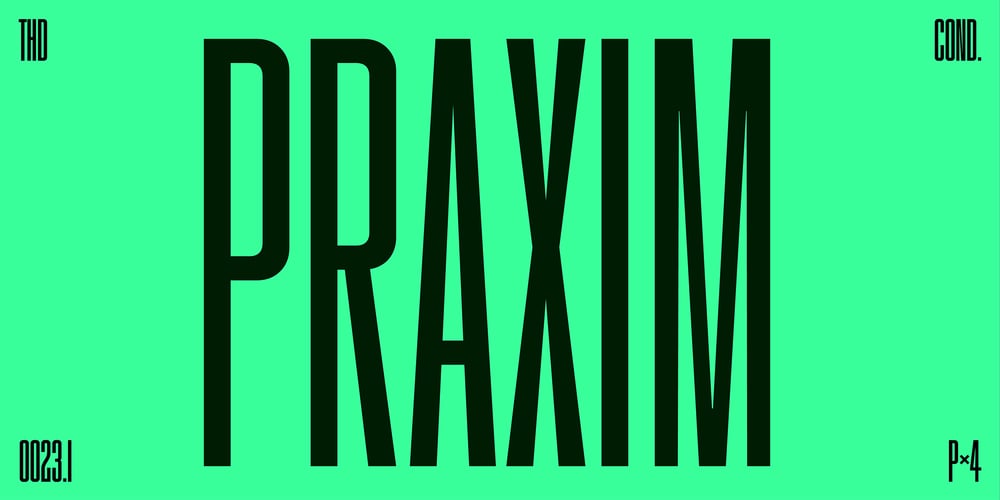
THD Praxim
THD Praxim font
THD Praxim Font Family was designed by Tim Hutchinson and published by Tim Hutchinson Design. THD Praxim contains 4 styles and family package options. THD Praxim is a modern, condensed style, sans serif font that comes in four weights – thin/regular/bold/heavy. The font is perfect for header & subheadings, editorial, display, brand & identity, campaigns, apps & web. It has a clarity & confidence which can communicate a range of messages through different media channels.